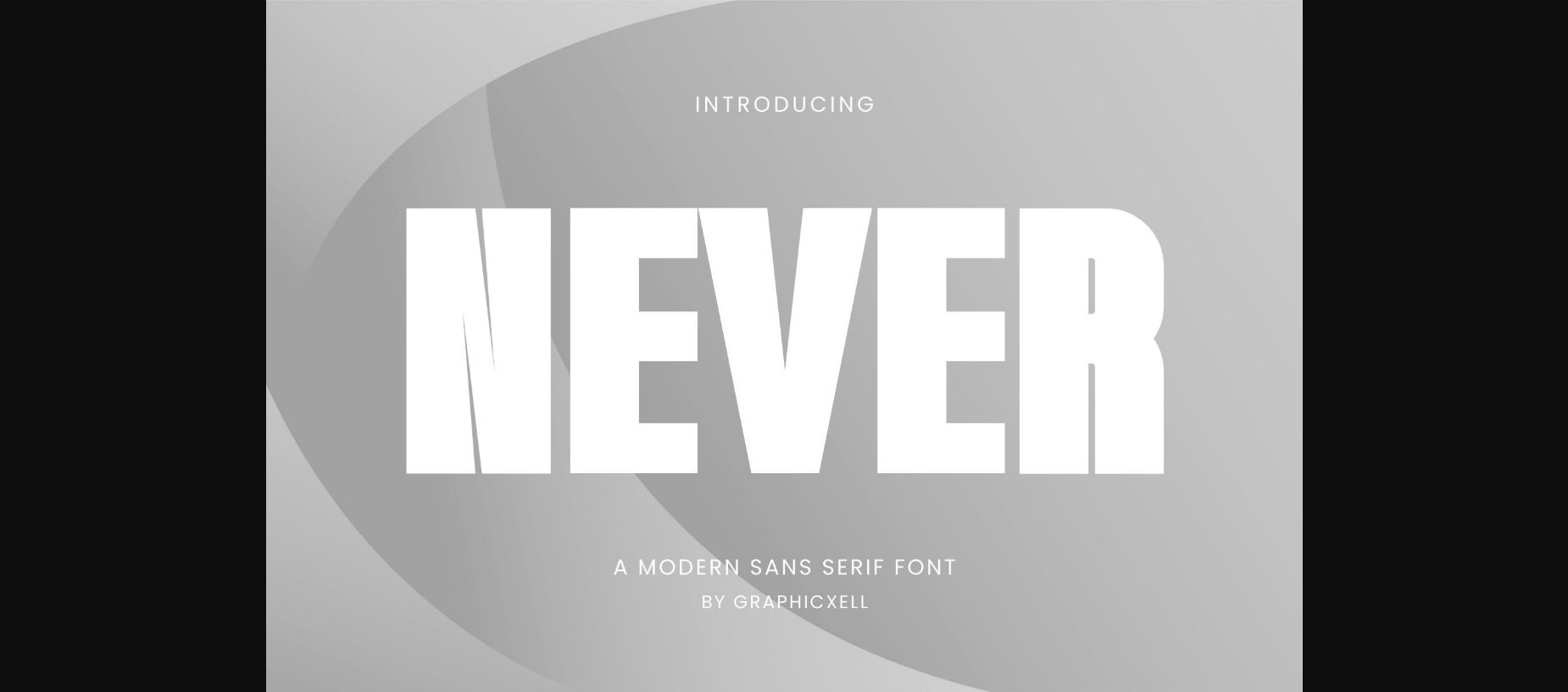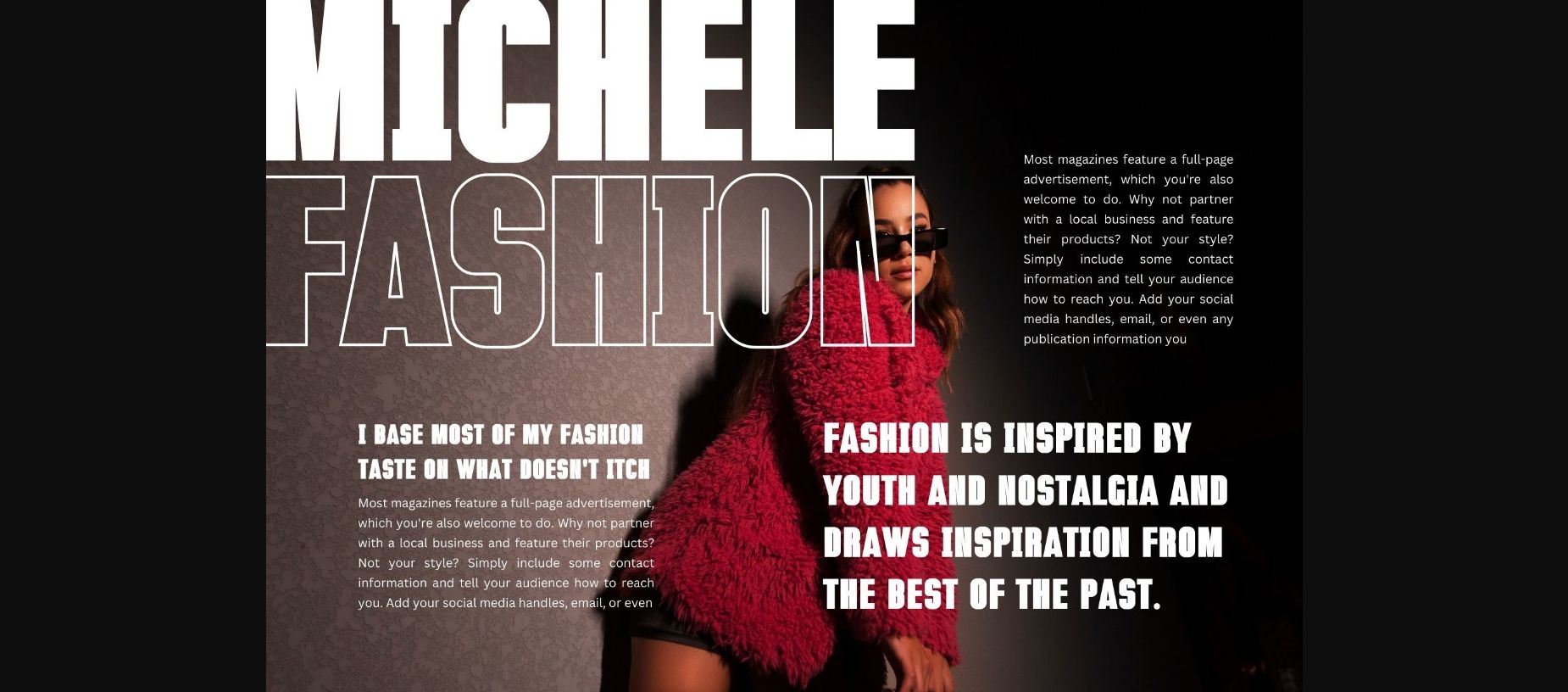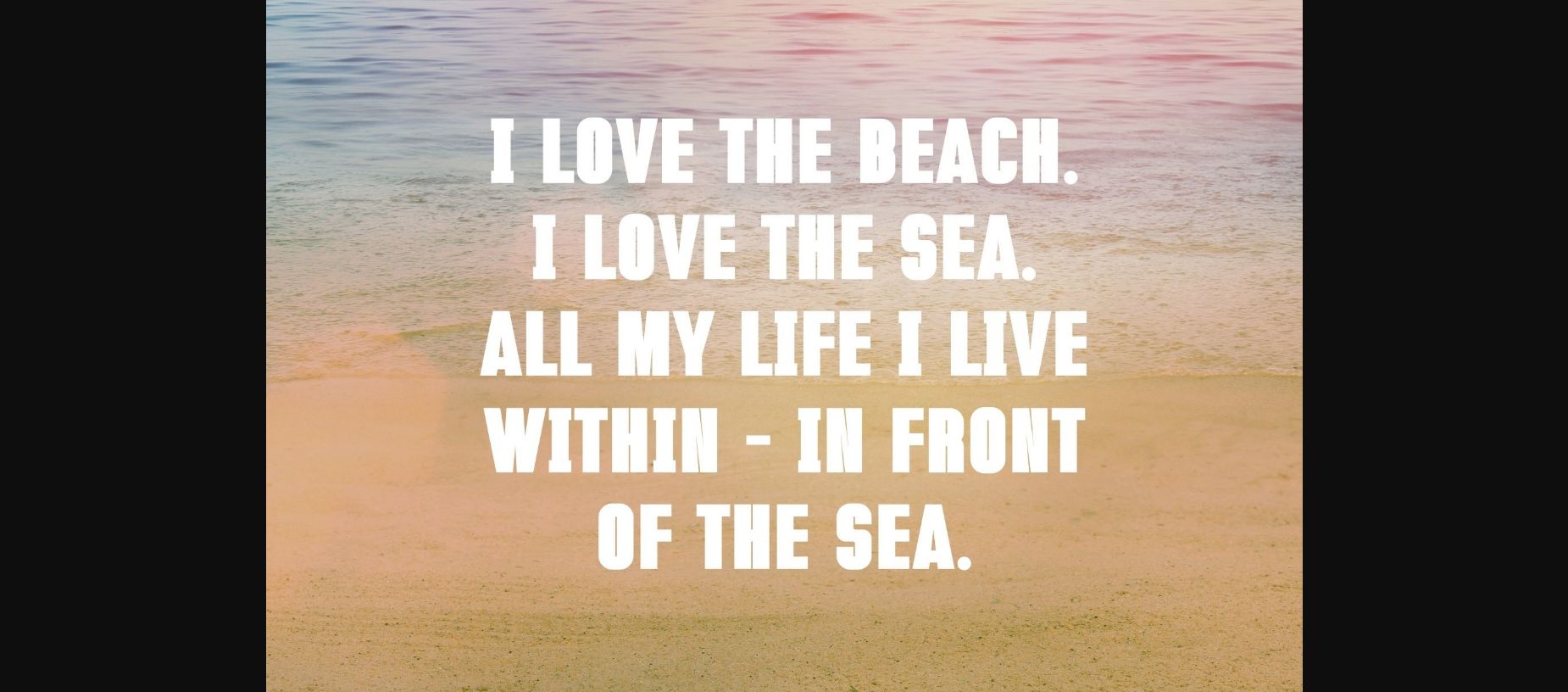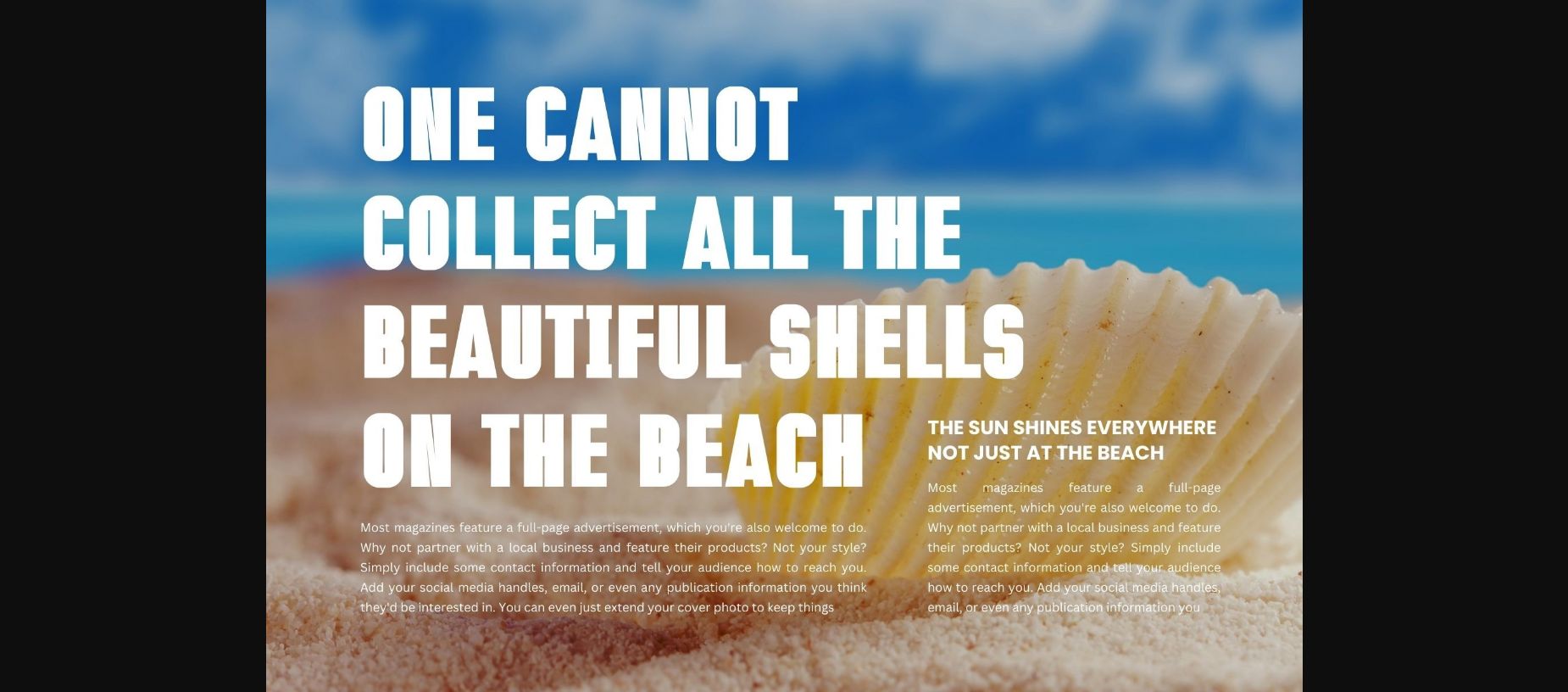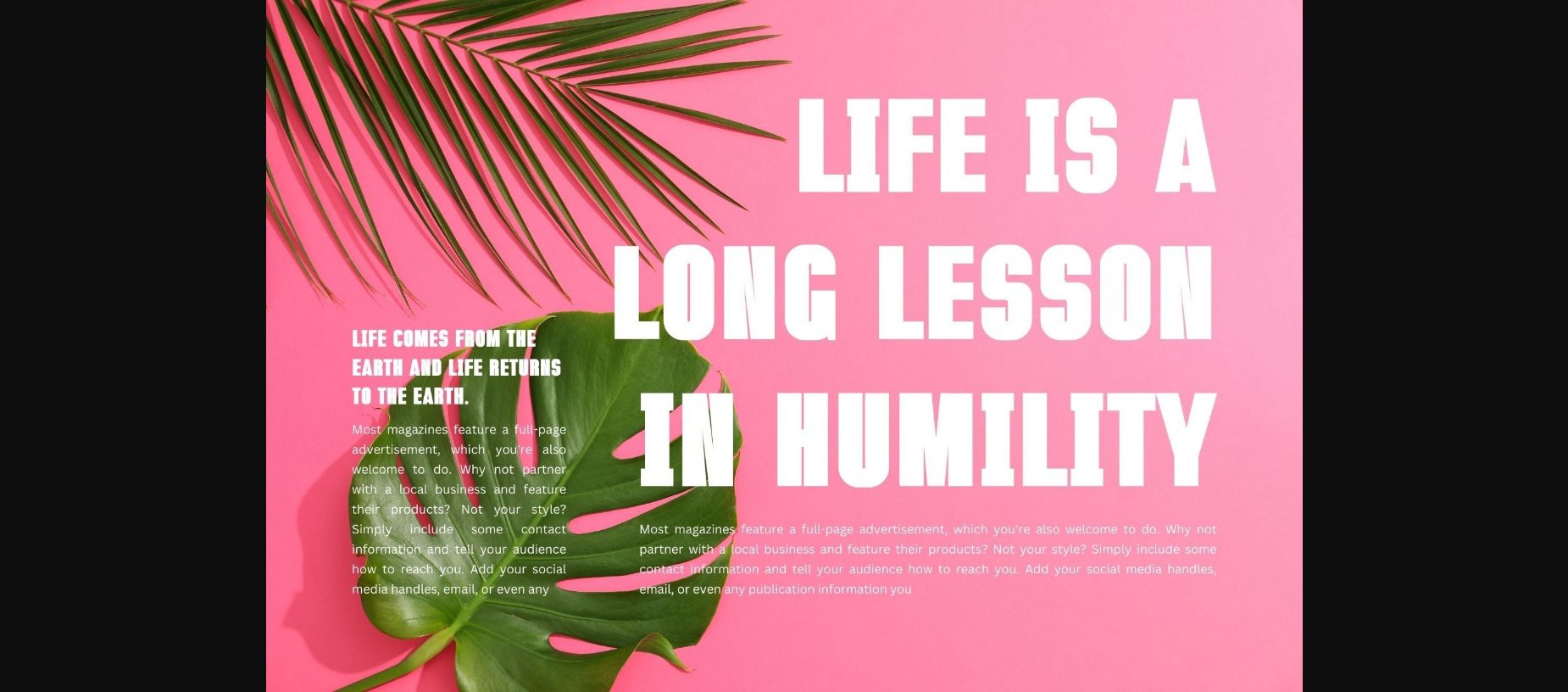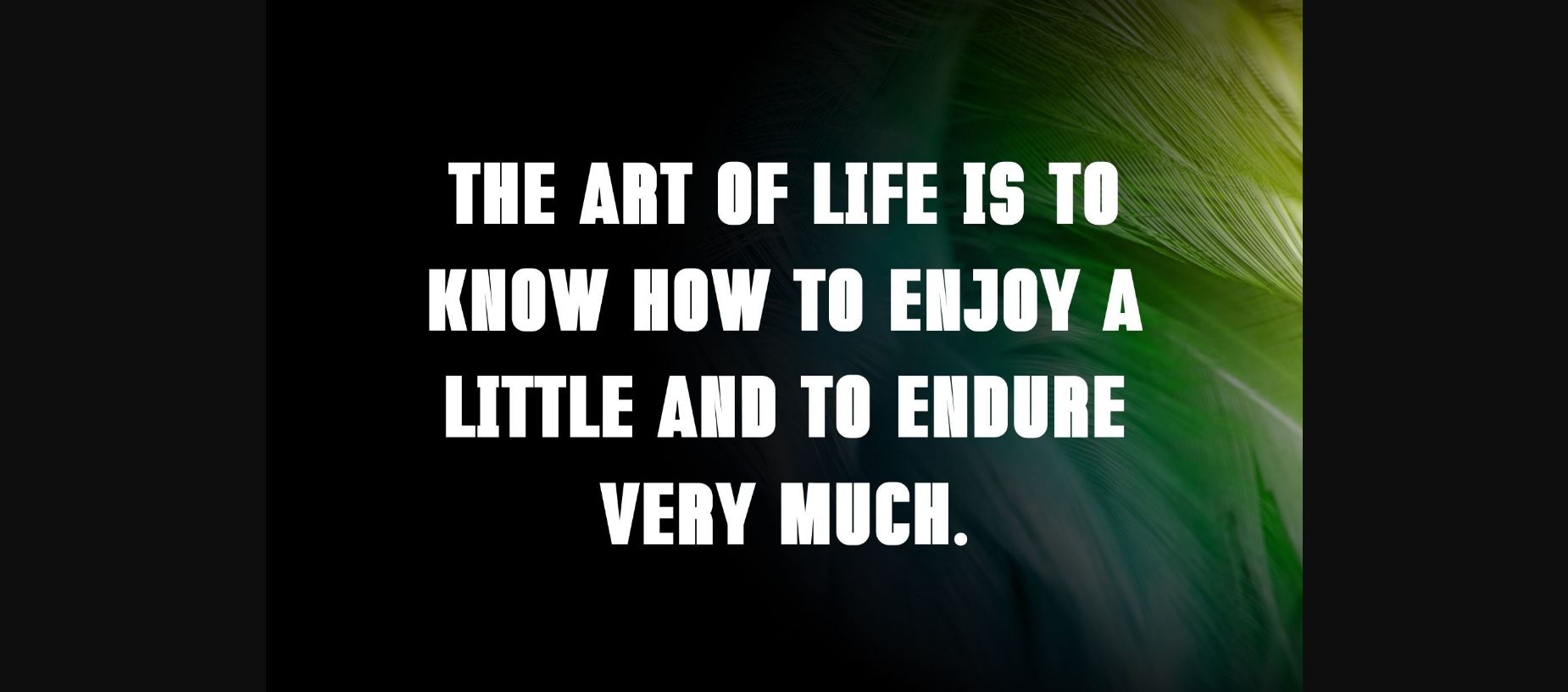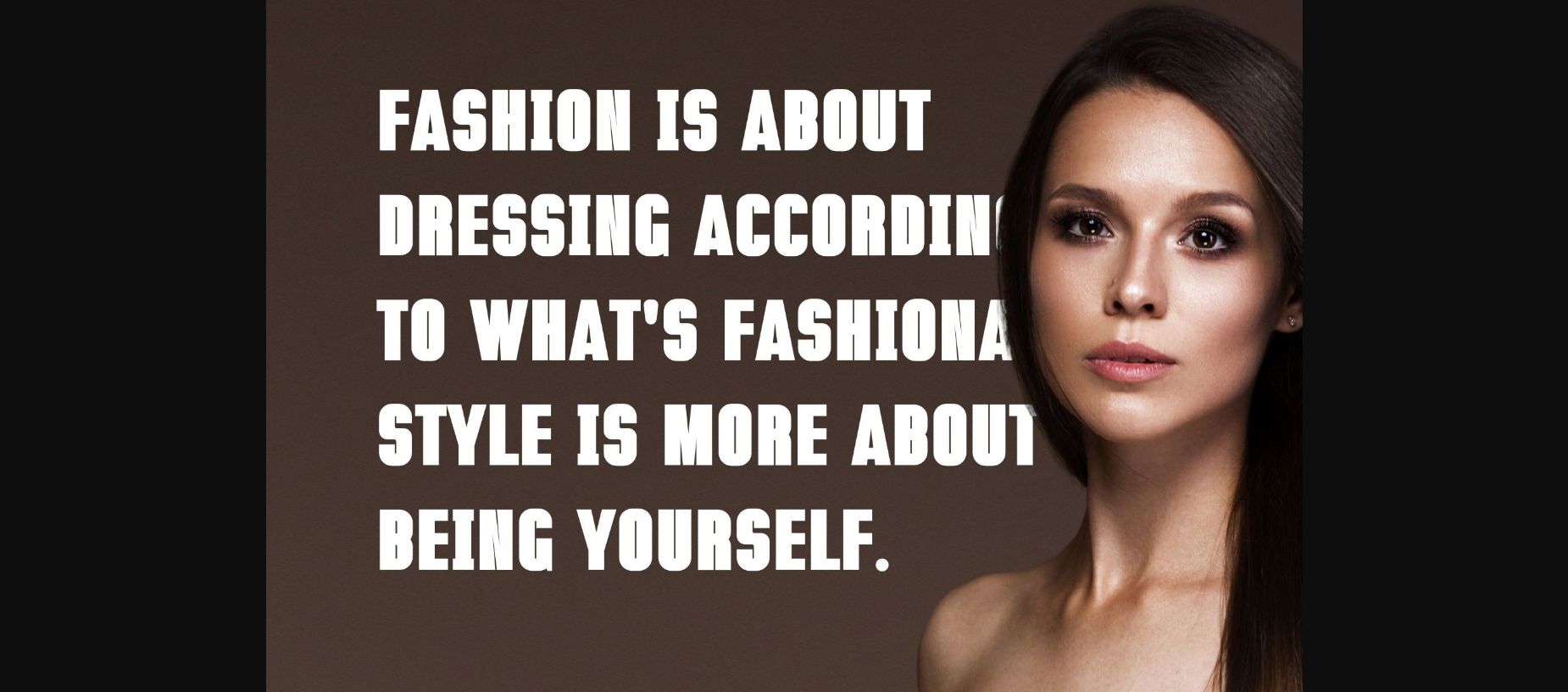
About Never Font
“Never” is a contemporary sans serif font characterized by its clean and sleek lines. With a minimalist design, it exudes a sense of modernity and professionalism. Its versatile nature makes it suitable for a wide range of applications, from digital interfaces to printed materials, adding a touch of sophistication to any project.